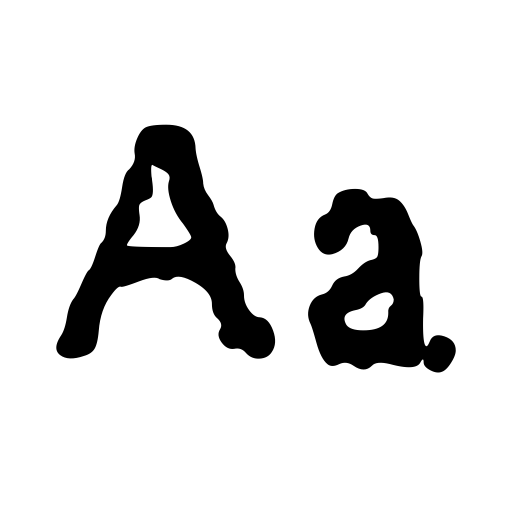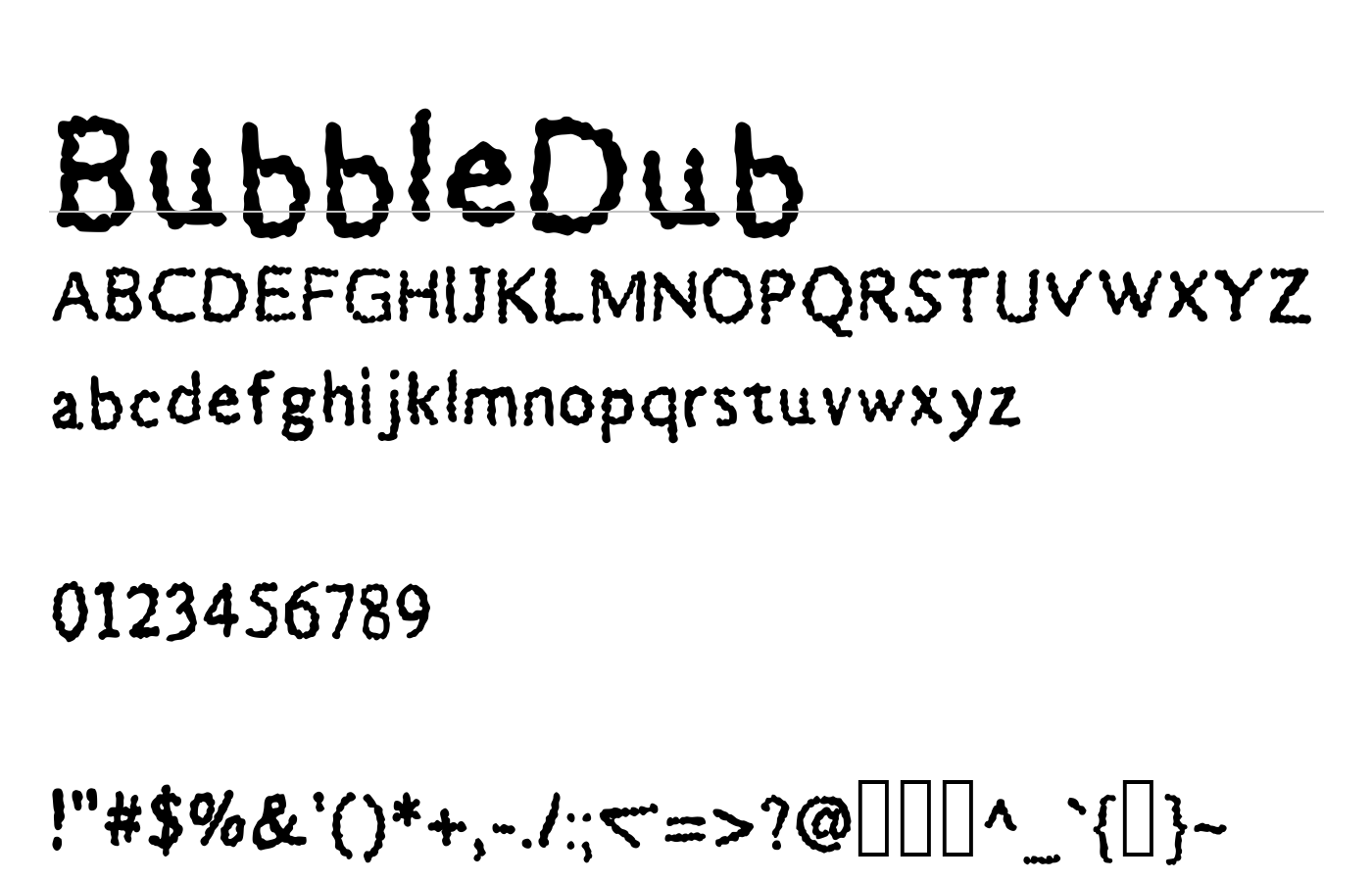
BubbleDub is a playful sans serif font with a bubbly, irregular texture that gives it a fun, hand-crafted feel. Its uneven, blobby strokes and quirky letter shapes make it ideal for creative and casual designs, perfect for children’s books, party invitations, or branding that wants to express whimsy and originality. This font works best in headlines and display uses where its unique personality can truly shine.
BubbleDub Font
About BubbleDub Font